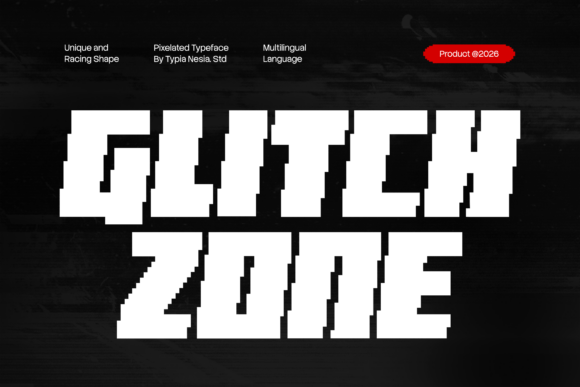
Unleash the Speed: Discover the Power of Glitch Zone Font
Have you ever been stuck in a design rut, searching for the perfect font to capture the essence of a high-octane gaming experience? The thrill of racing, the rush of competition, and the futuristic digital world all come together in one electrifying package – the Glitch Zone Font.
This bold, modern pixel racing game font is specifically designed to inject high-speed energy into your designs, transporting you to a world of futuristic digital landscapes and cyber vibes. As a designer, you know the importance of selecting the right font to elevate your project’s impact, and the Glitch Zone Font delivers just that – precision, speed, and a touch of glitch-inspired magic.
- Unique Characteristics: Distressed, glitchy, and futuristic aesthetic; perfect for futuristic, sci-fi, and tech-related designs
Glitch Zone Font Review
I’ve had the chance to work with the Glitch Zone Font, and I have to say, it’s a unique addition to any design project. ✨ The font’s glitchy aesthetic gives it a futuristic feel that’s perfect for tech-related projects or anything that needs a bit of an edge.
One of the things that I think works well with the Glitch Zone Font is its versatility. It’s available in a range of styles, from light to bold, which makes it easy to use in different contexts. ✨ The font also comes with a variety of glyphs, including punctuation marks and symbols, which can add an extra layer of interest to your designs.
Here are some specific features that I think are worth highlighting:
- Glitchy aesthetic that adds a futuristic feel
- Available in light, regular, bold, and heavy styles
- Includes a range of glyphs, including punctuation marks and symbols
- Supports multiple languages
That being said, there are a few limitations to consider:
- May not be suitable for projects that require a more traditional or formal look
- Can be difficult to read in certain contexts, such as small text or low-resolution displays
- May require additional styling to achieve the desired effect
Overall, I think the Glitch Zone Font is a great addition to any designer’s toolkit. It’s unique, versatile, and can add a lot of interest to your designs. ⚠️ Just be sure to use it thoughtfully and consider the limitations.
Glitch Zone Font is perfect for creating a retro, futuristic, or cyberpunk aesthetic.
Use it for titles, headings, or quotes to add a touch of edginess to your design.